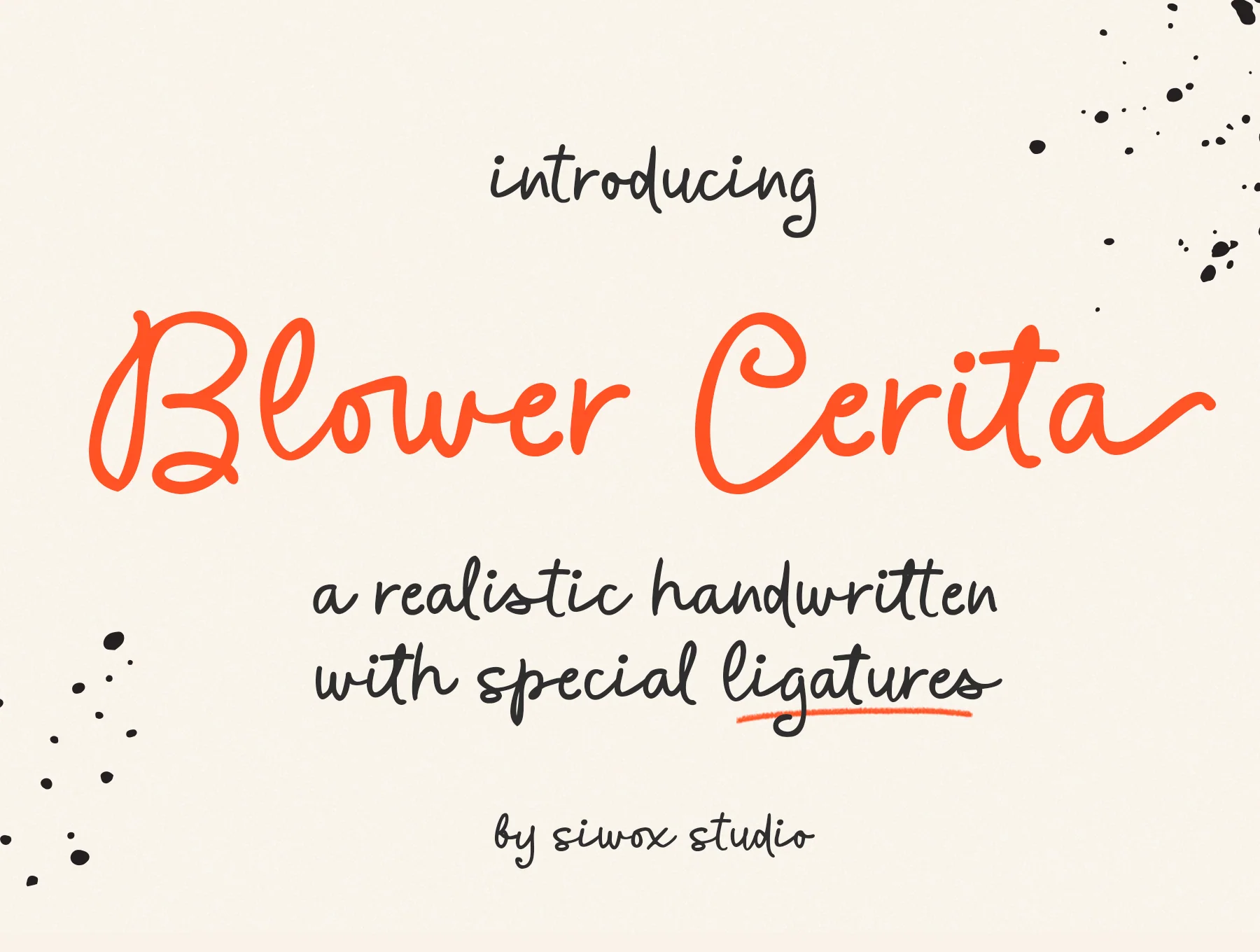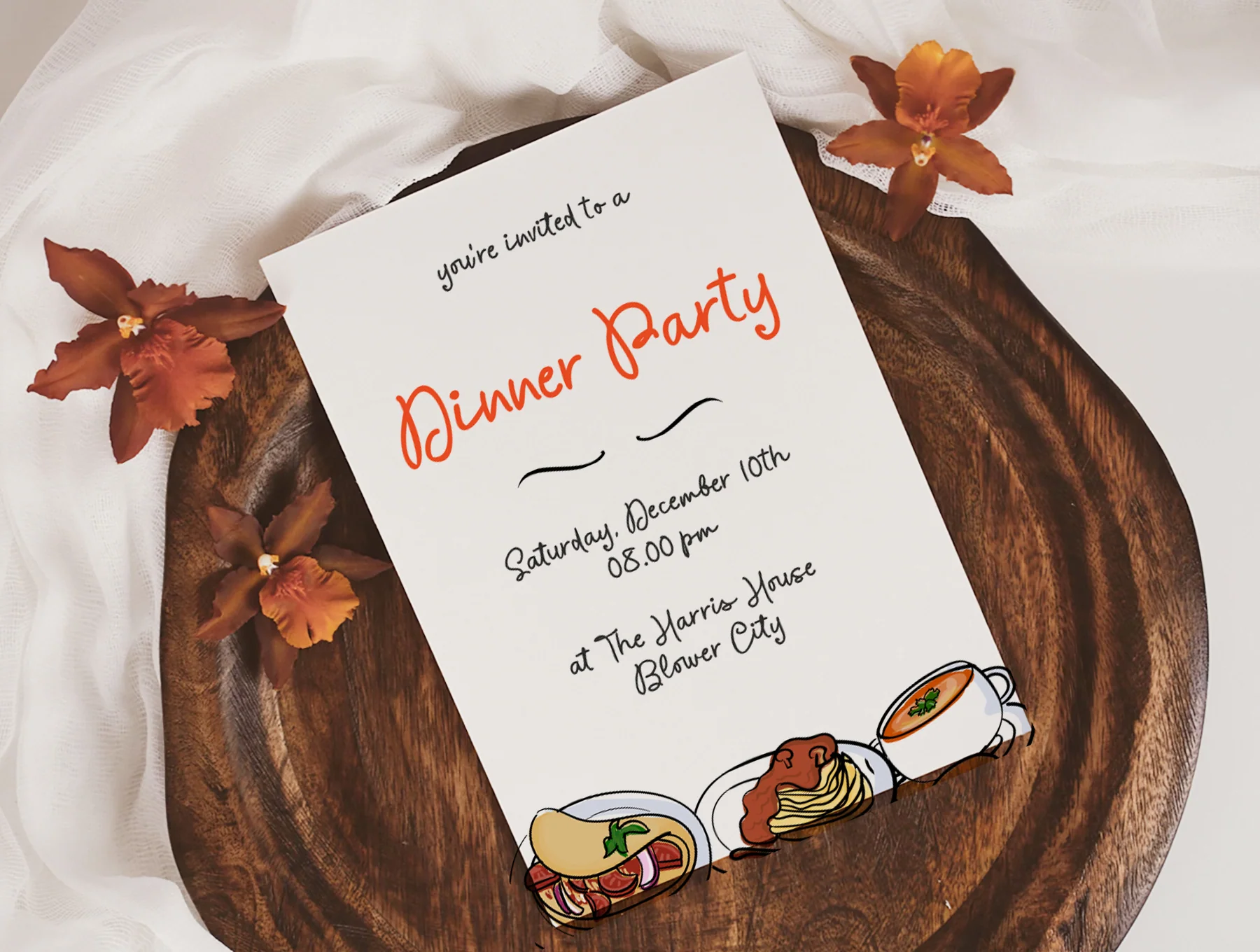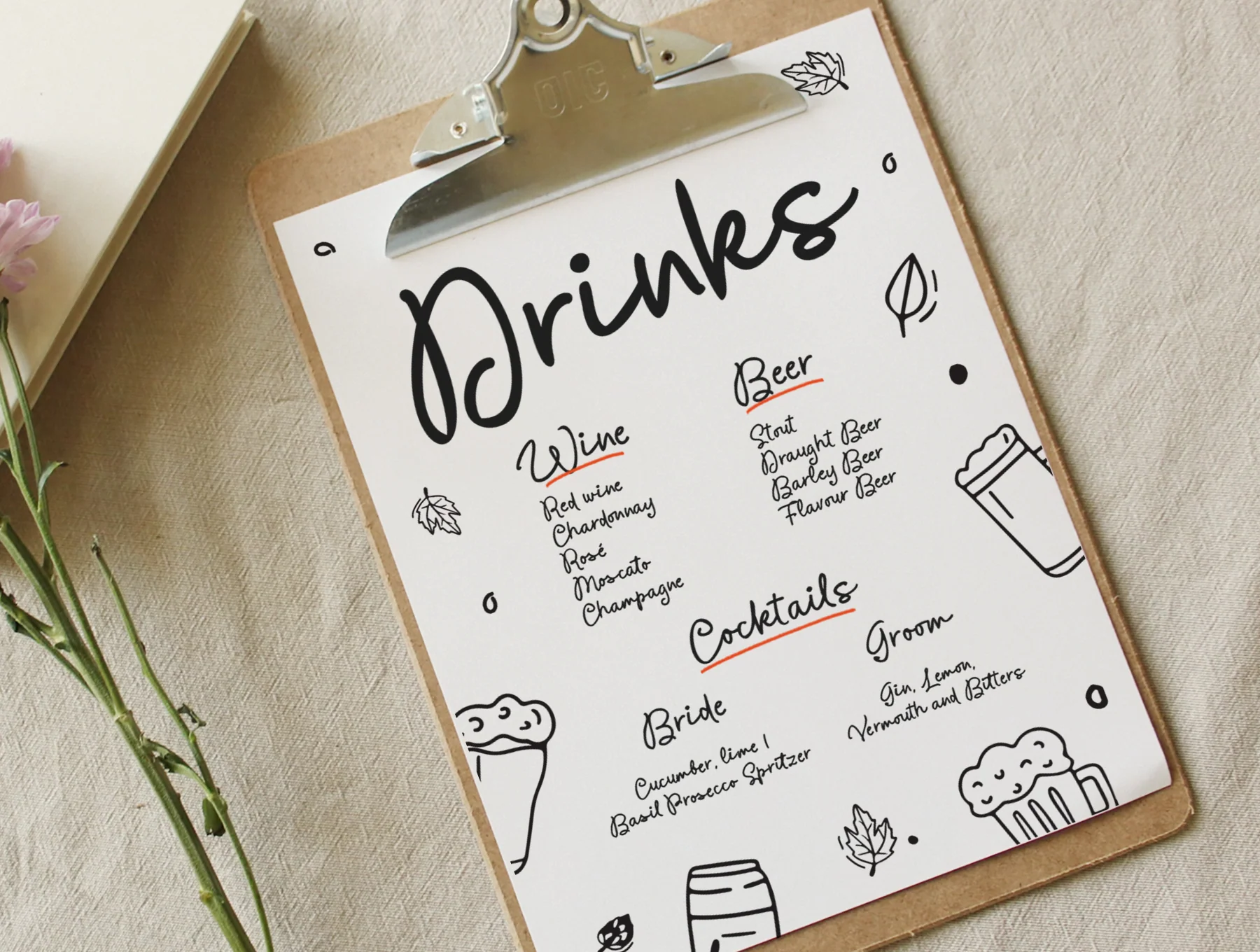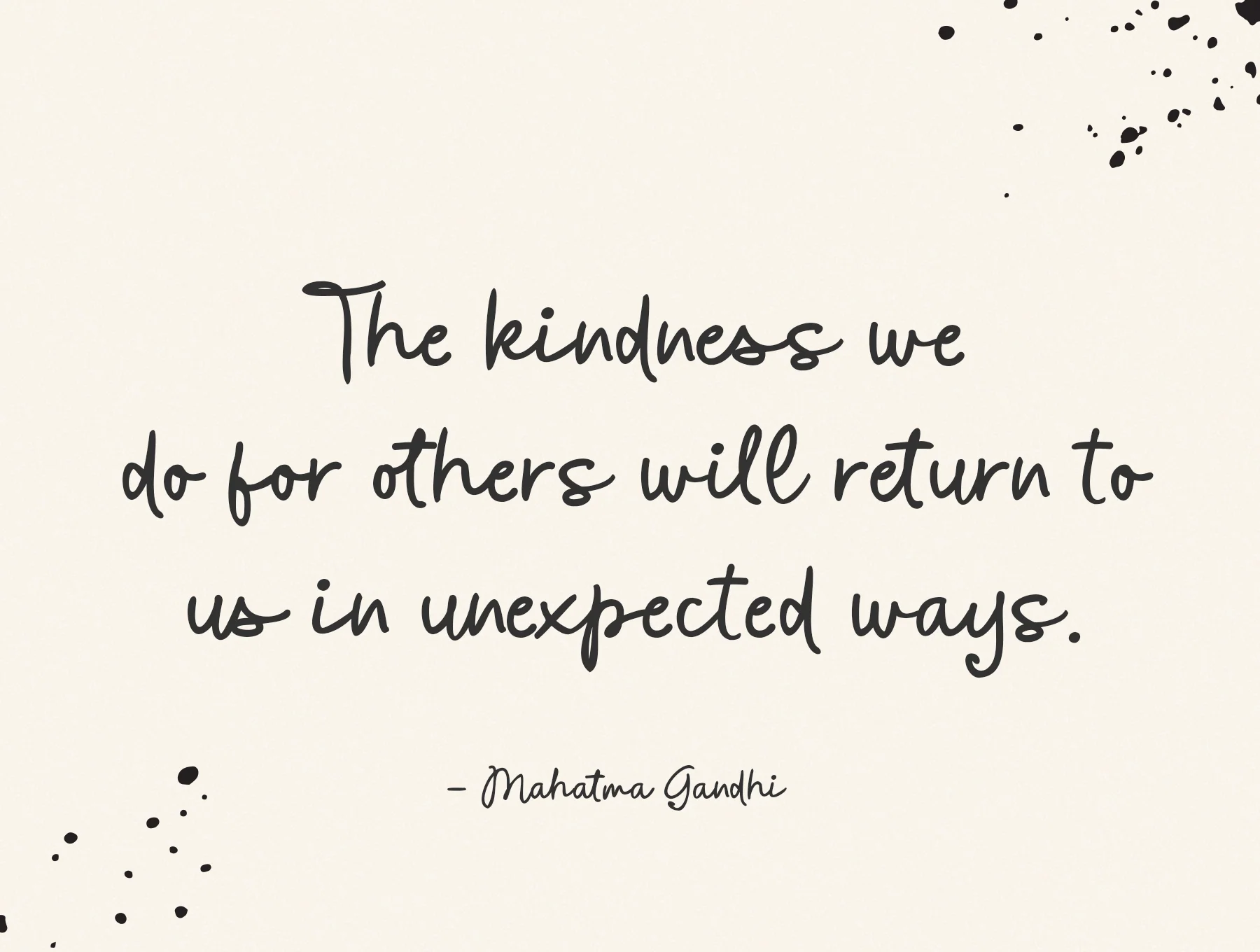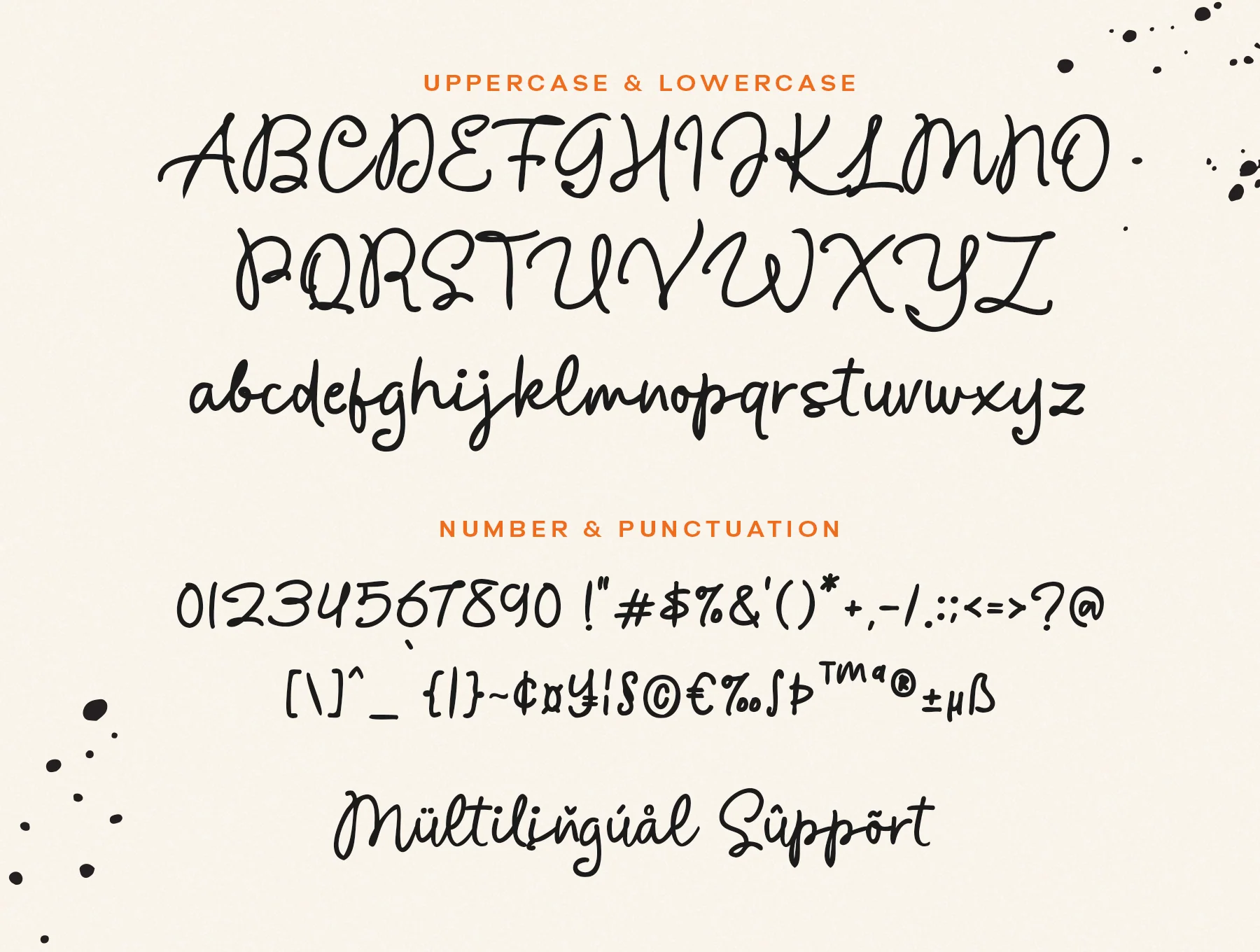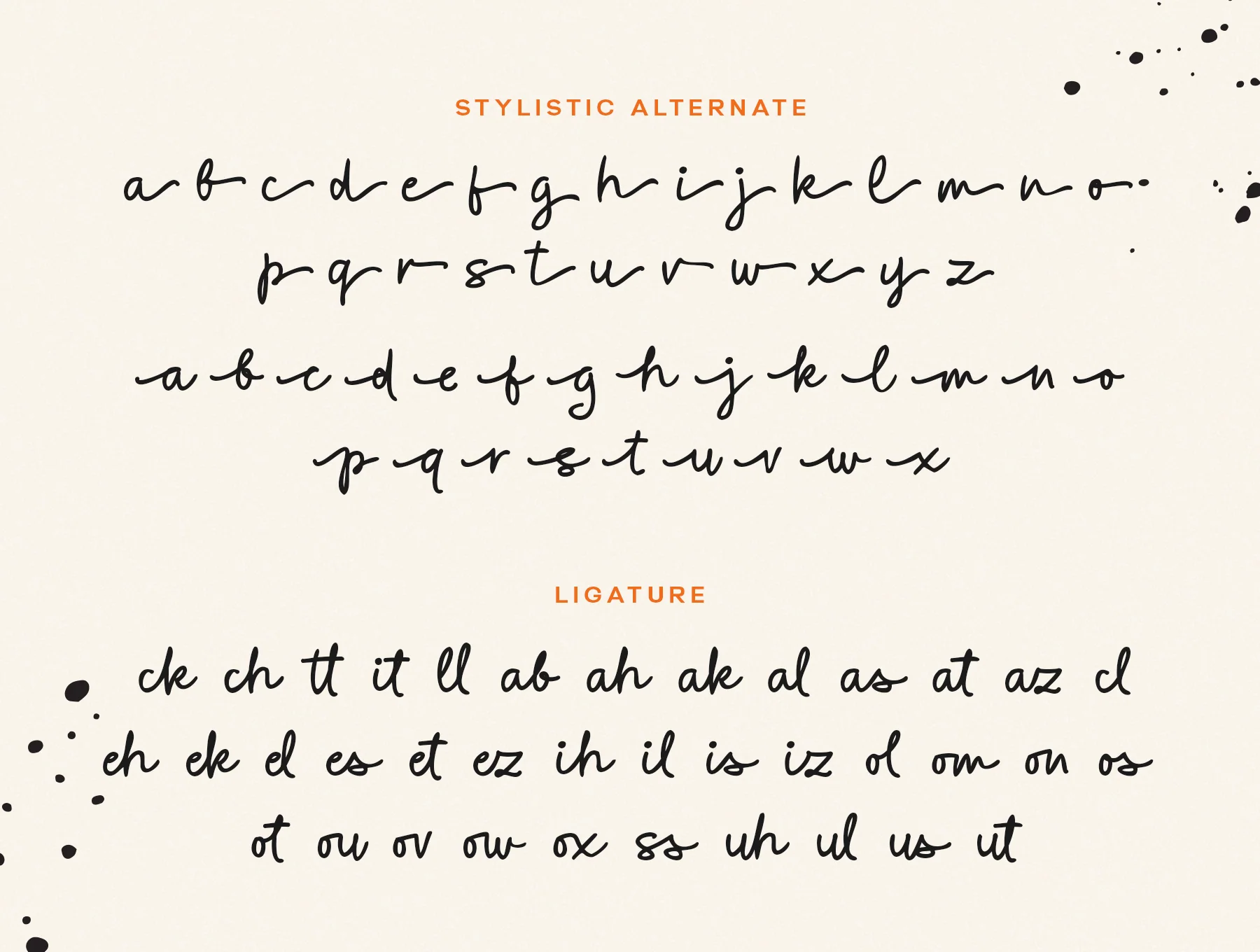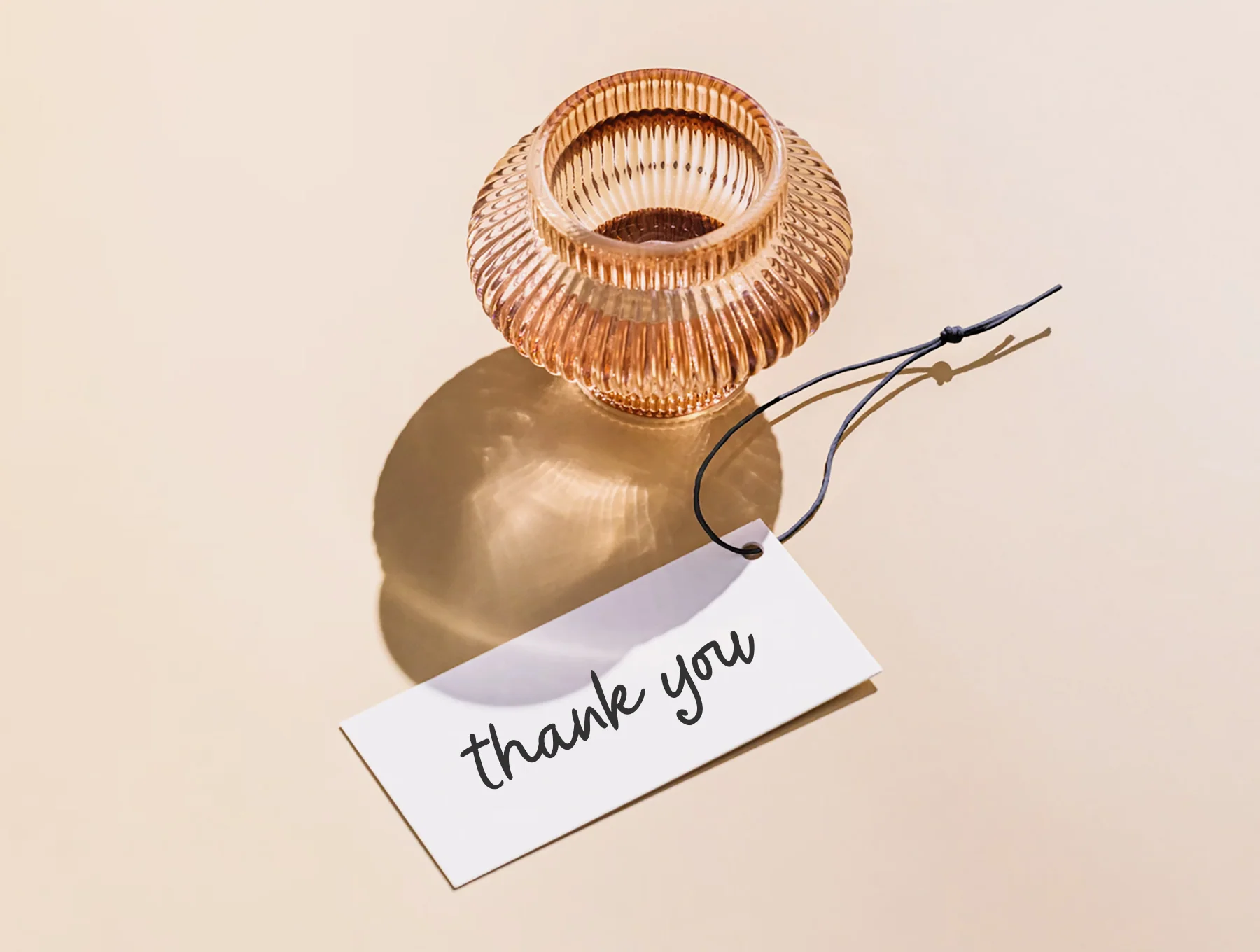
Blower Cerita - a handwritten font
Realistic handwritten script fonts
Complete set of uppercase and lowercase letters
Multilingual symbols, numbers, and punctuation marks
Ligatures and alternate forms
Blower Cerita is a realistic handwritten font for creative work. Use it for logos, invitations, wedding and birthday cards, home decor, gift packaging, party decor, fabric prints, and more. Includes TTF, OTF, WOFF, and WOFF2 files.